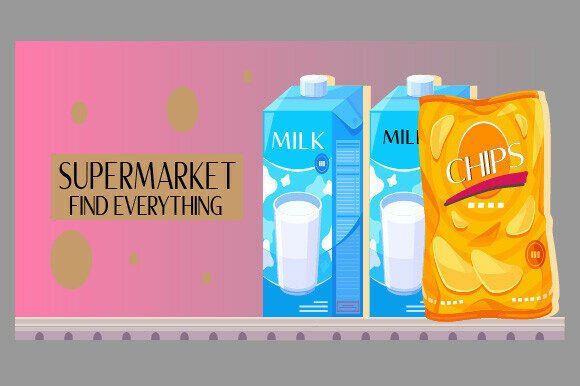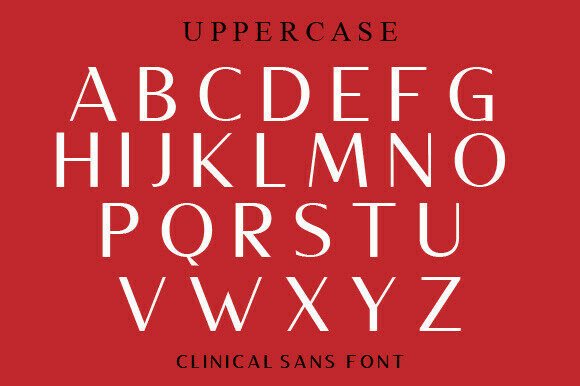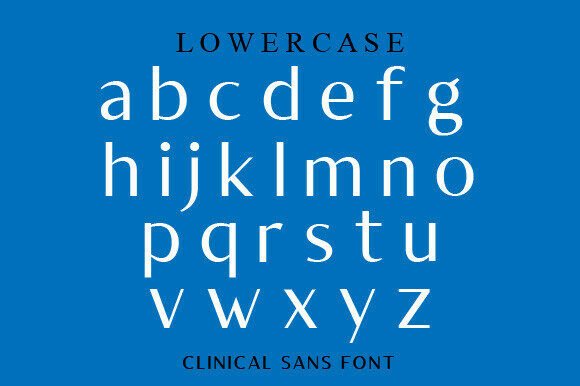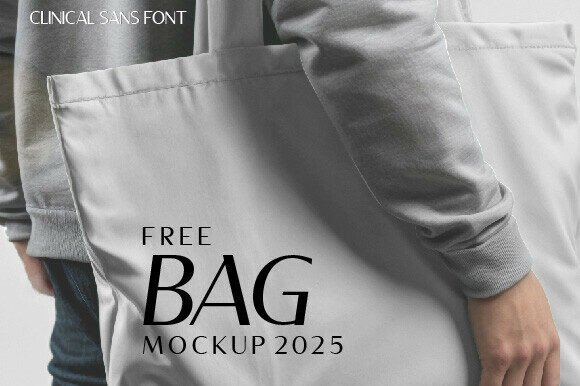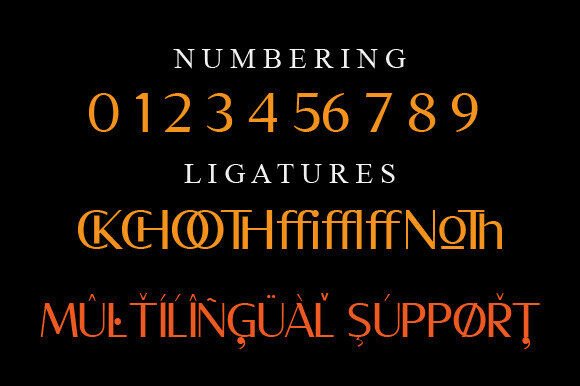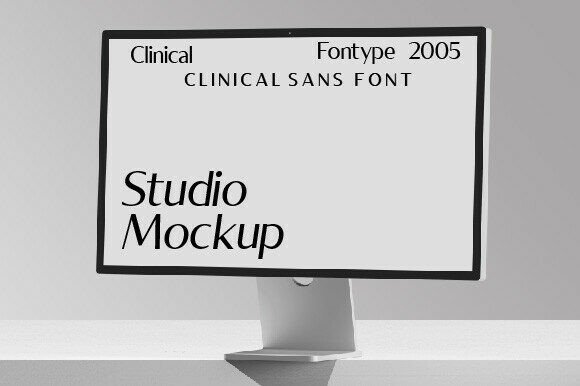
Unveiling the Clinical Font: Elevate Your Designs with Modern Elegance
In the realm of typography, the right font can transform your design from ordinary to extraordinary. For those seeking a blend of modernity and elegance, the Clinical font emerges as a standout choice. This sans-serif beauty is not just a typeface; it’s a design statement that breathes life into your projects, whether you’re crafting headlines, designing logos, or laying out magazine pages.
The Essence of Clinical Font
The Clinical font is characterized by its clean lines, modern aesthetic, and a certain elegance that sets it apart from more conventional sans-serif fonts. Its design is versatile, making it suitable for a wide range of applications. From branding and advertising to web design and editorial layouts, the Clinical font offers a unique touch that can elevate your work.
One of the key advantages of the Clinical font is its versatility. It doesn’t matter if you’re working on a headline that needs to grab attention, a logo that must represent a brand’s identity, or a magazine layout that requires a sophisticated look; the Clinical font adapts seamlessly. Its ability to convey both modernity and elegance makes it an invaluable asset for designers looking to create a lasting impression.
Finding the Perfect Style: Regular and Italic
The Clinical font comes in two stylish variations: Regular and Italic. This range allows designers to add depth and contrast to their work. The Regular style offers a solid foundation, perfect for body text and main headings. Meanwhile, the Italic style adds a dynamic flair, ideal for highlighting key points, creating visual interest, or simply adding a touch of sophistication to your designs.
Applications of the Clinical Font
The applications of the Clinical font are vast and varied. Here are a few areas where it truly shines:
- Branding: Use the Clinical font to give your brand a modern and elegant look. Its unique style can help you stand out in a crowded market.
- Web Design: Enhance your website’s aesthetic with a font that is both readable and stylish. The Clinical font ensures that your content is presented in a clean and engaging manner.
- Magazine and Editorial Design: Add a touch of sophistication to your magazine or editorial layouts. The Clinical font works well for both headings and body text, providing a cohesive look.
- Advertising: Create eye-catching advertisements with a font that commands attention. The Clinical font’s modern elegance makes it perfect for headlines and promotional material.
Why Choose the Clinical Font?
In a world where design trends are constantly evolving, having a font that can keep pace is invaluable. The Clinical font offers:
- Timeless Elegance: Its design is both contemporary and timeless, ensuring your work remains relevant for years to come.
- High Versatility: Suitable for a wide range of projects, from digital to print.
- Enhanced Readability: Despite its elegant appearance, the Clinical font maintains high readability, making it perfect for both headings and body text.
If you’re on the hunt for a font that combines modern sophistication with elegance, look no further than the Clinical font. Its versatility, paired with the included Regular and Italic styles, makes it an excellent choice for designers and crafters aiming to elevate their work. Whether you’re revamping your brand’s image, creating a stunning website, or laying out a magazine, the Clinical font is your ticket to achieving design excellence.
Embrace the Clinical font in your next project and discover how this sans-serif beauty can transform your designs, adding a touch of modern elegance that captivates and inspires.